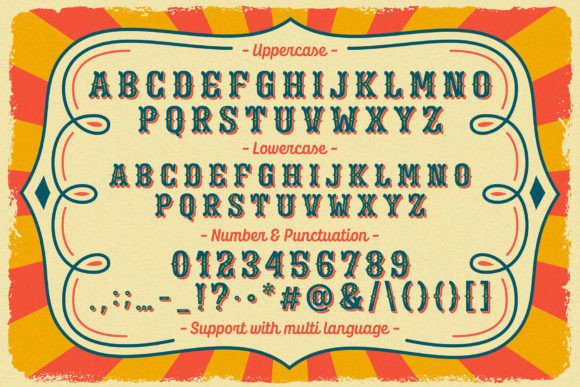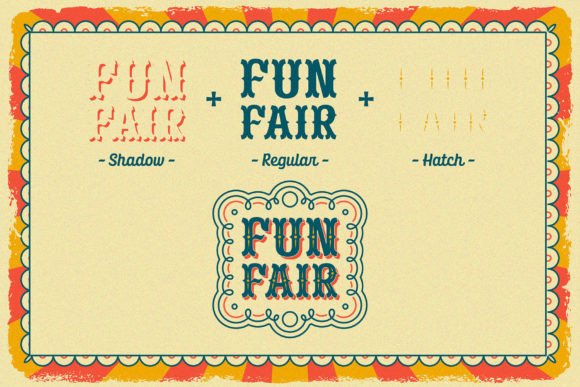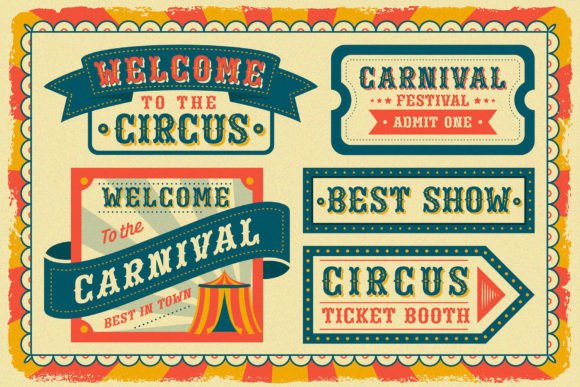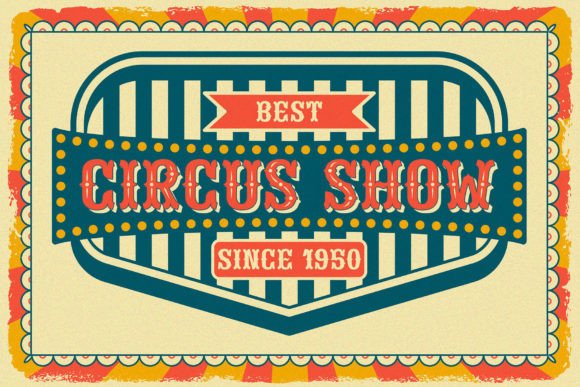
Boggle Royale is a layered display typeface inspired by the vintage design of circus and festival signage. Add it confidently to your projects and you will be astounded by the outcome generated!